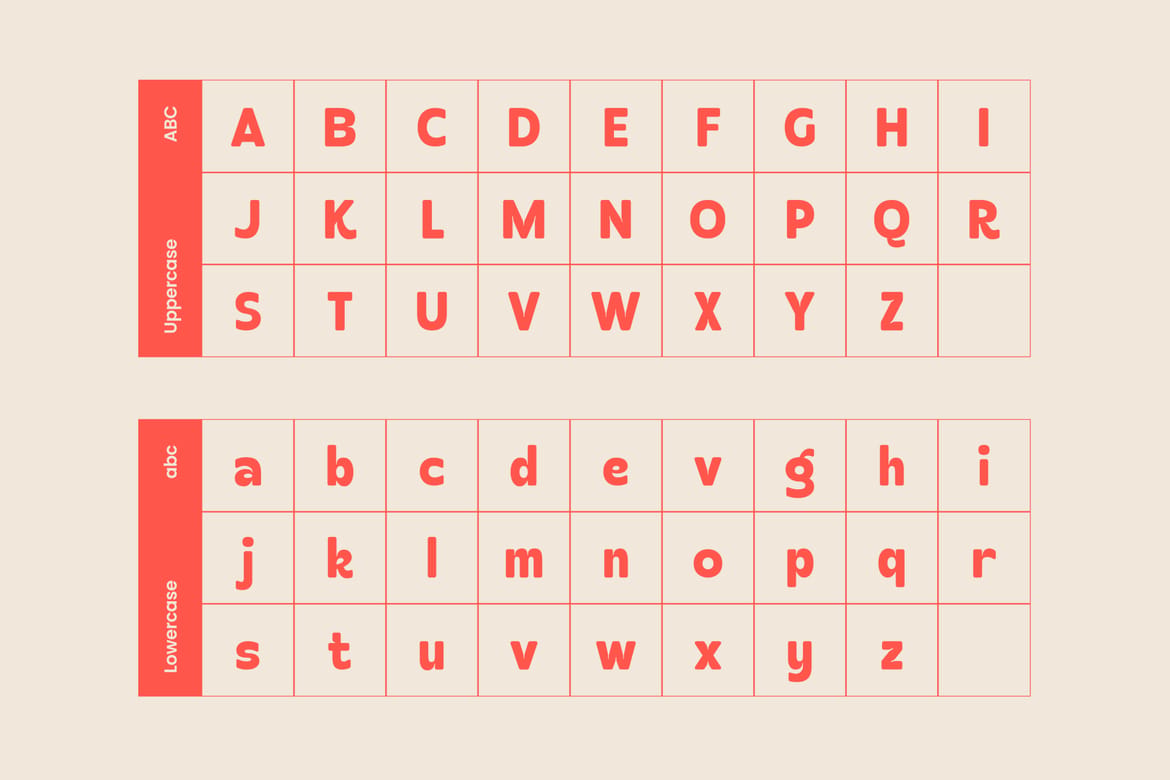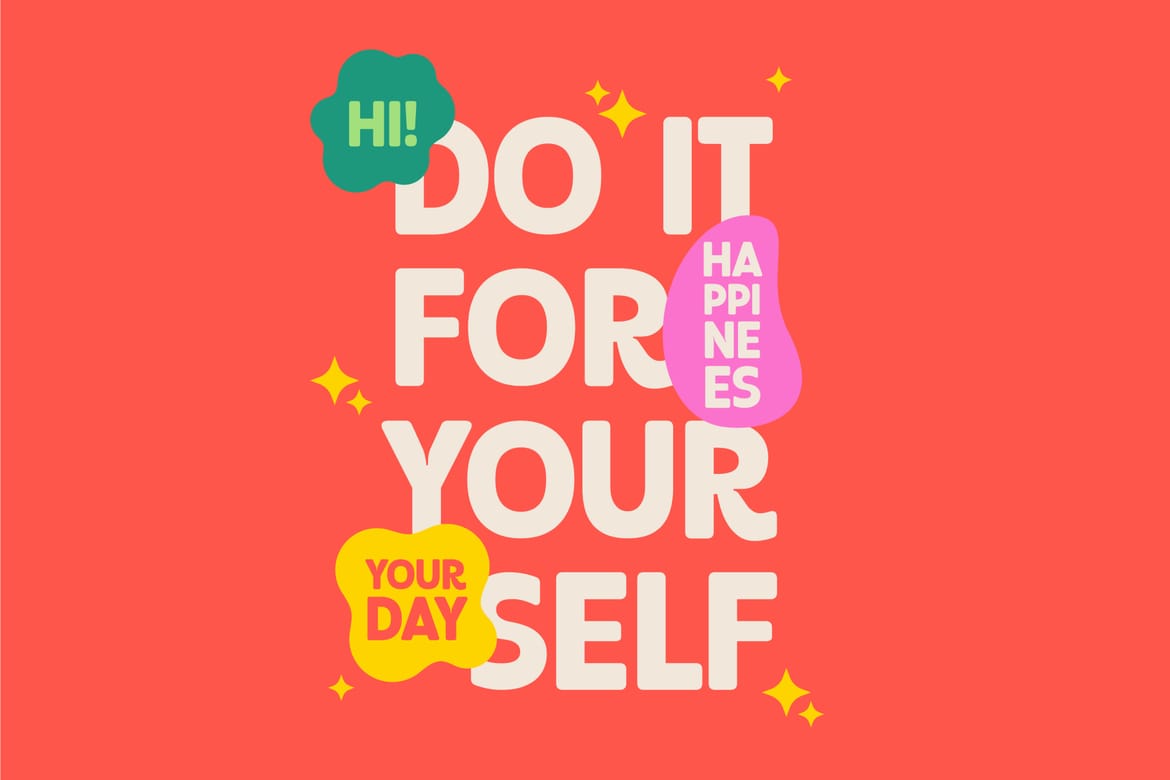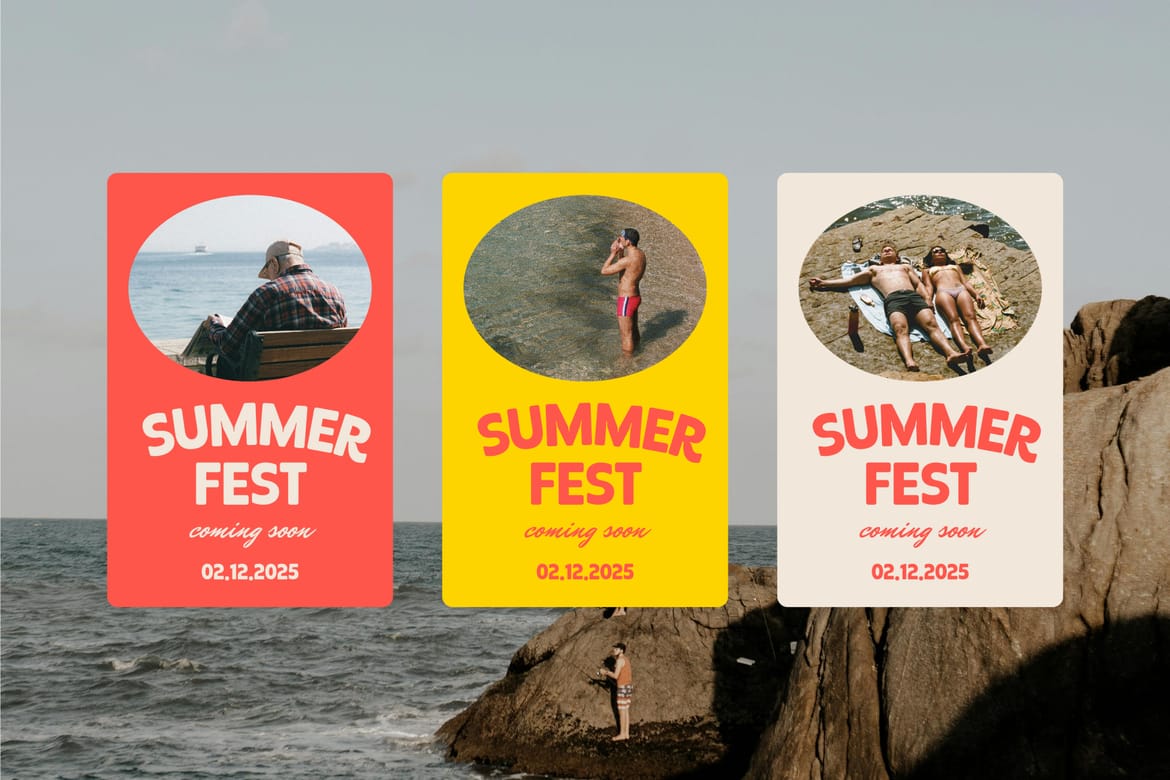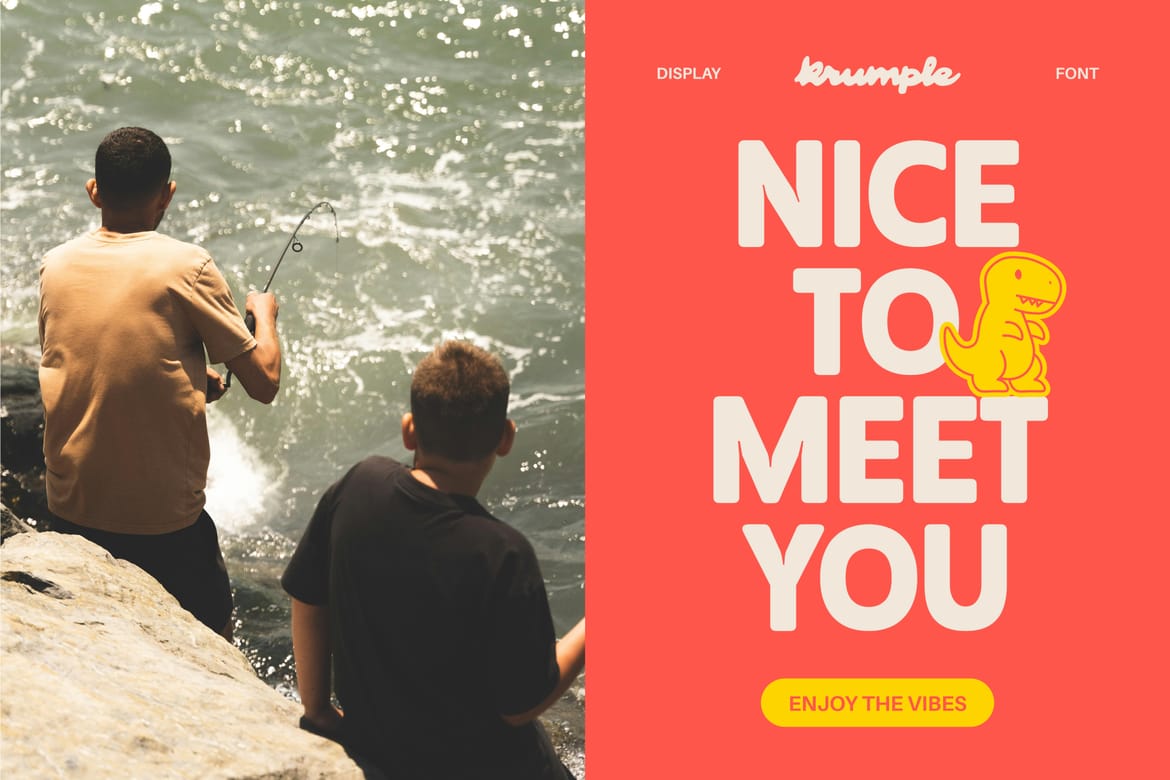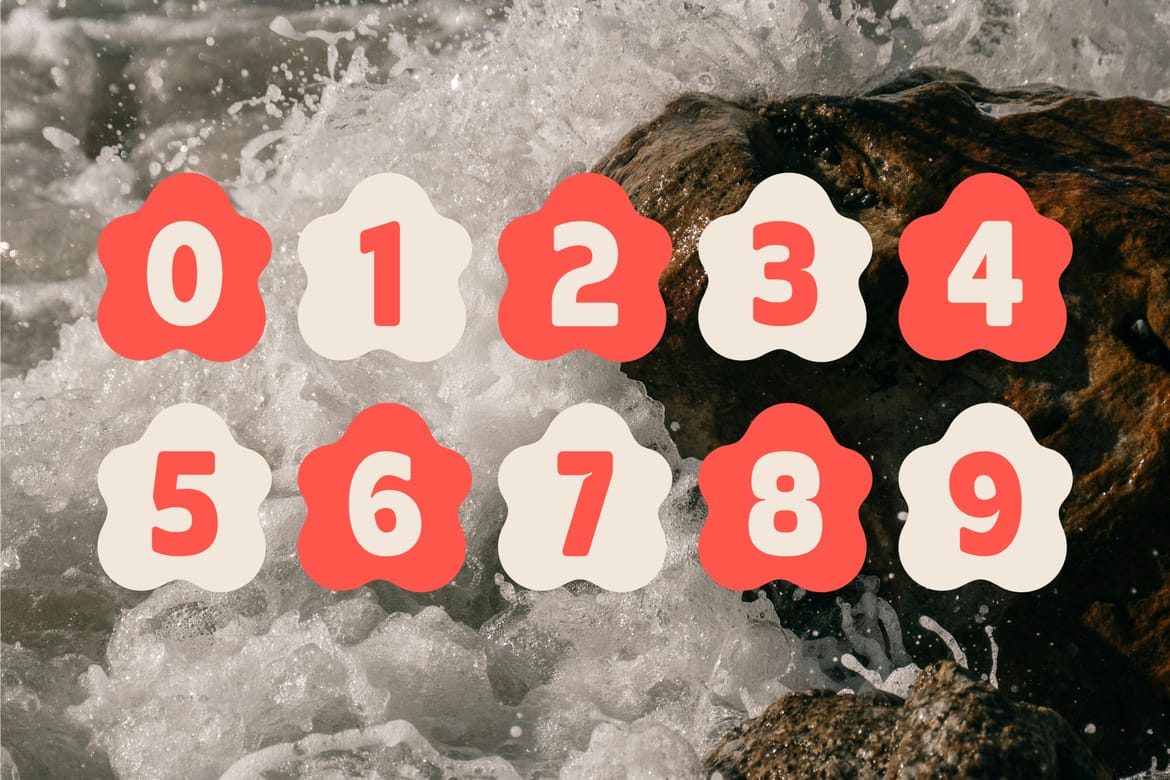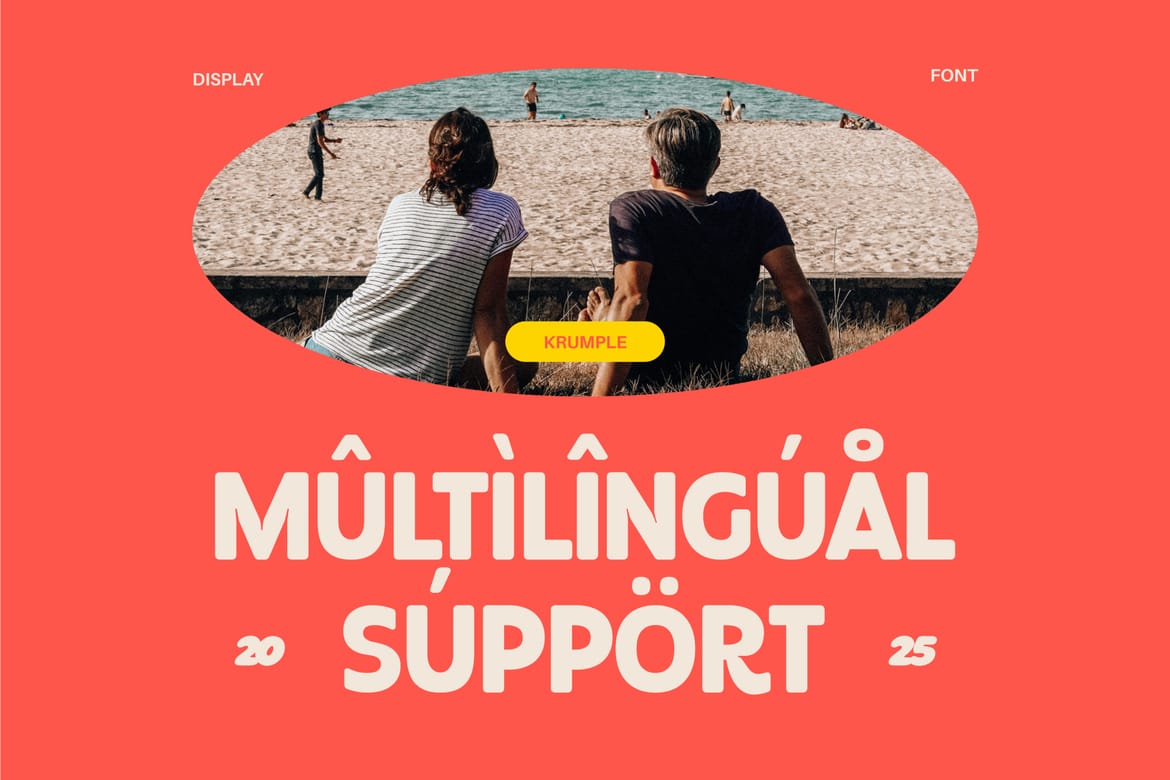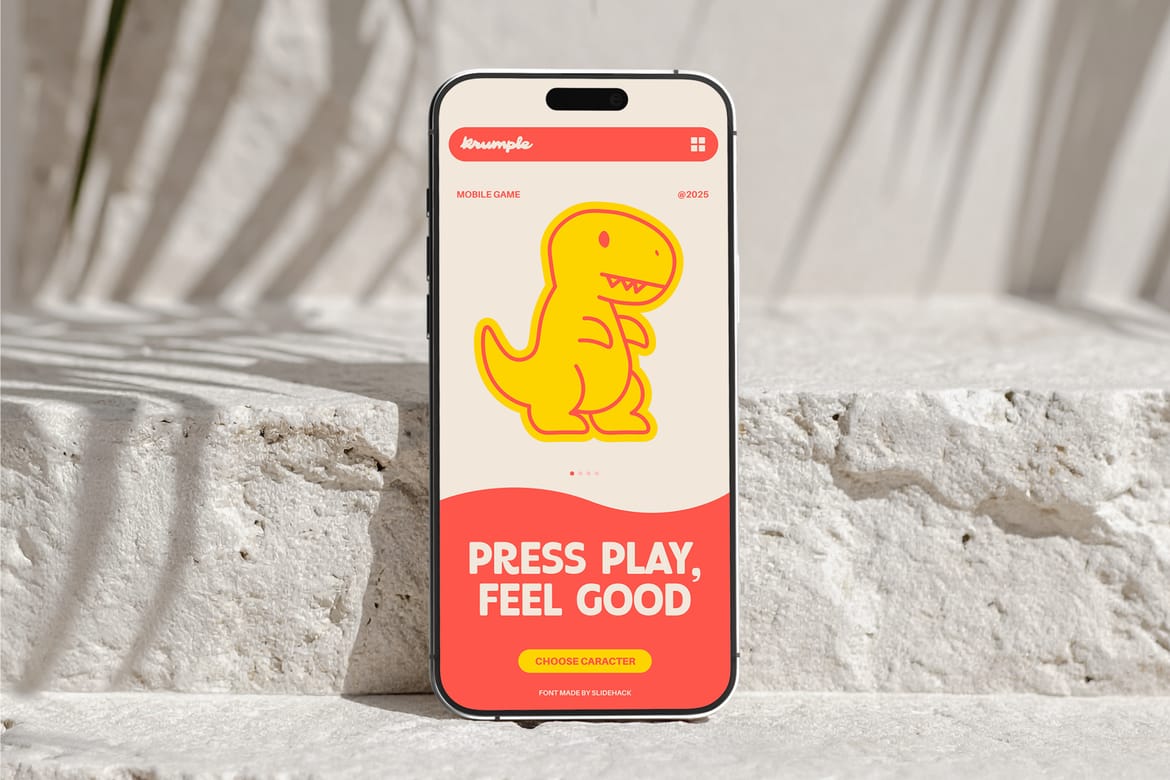
Krumple is a bold, playful display font perfect for branding, posters, packaging, and social media. Featuring rounded edges and fun character shapes, it adds charm to any design. Ideal for children’s themes, creative projects, and standout headlines. Fully PUA encoded and easy to use in all design software.
Clean rounded display with a playful modern vibe
Perfect for kids branding, snack packaging, and cheerful digital projects
Smooth bold letterforms create a friendly eye-catching personality with strong readability